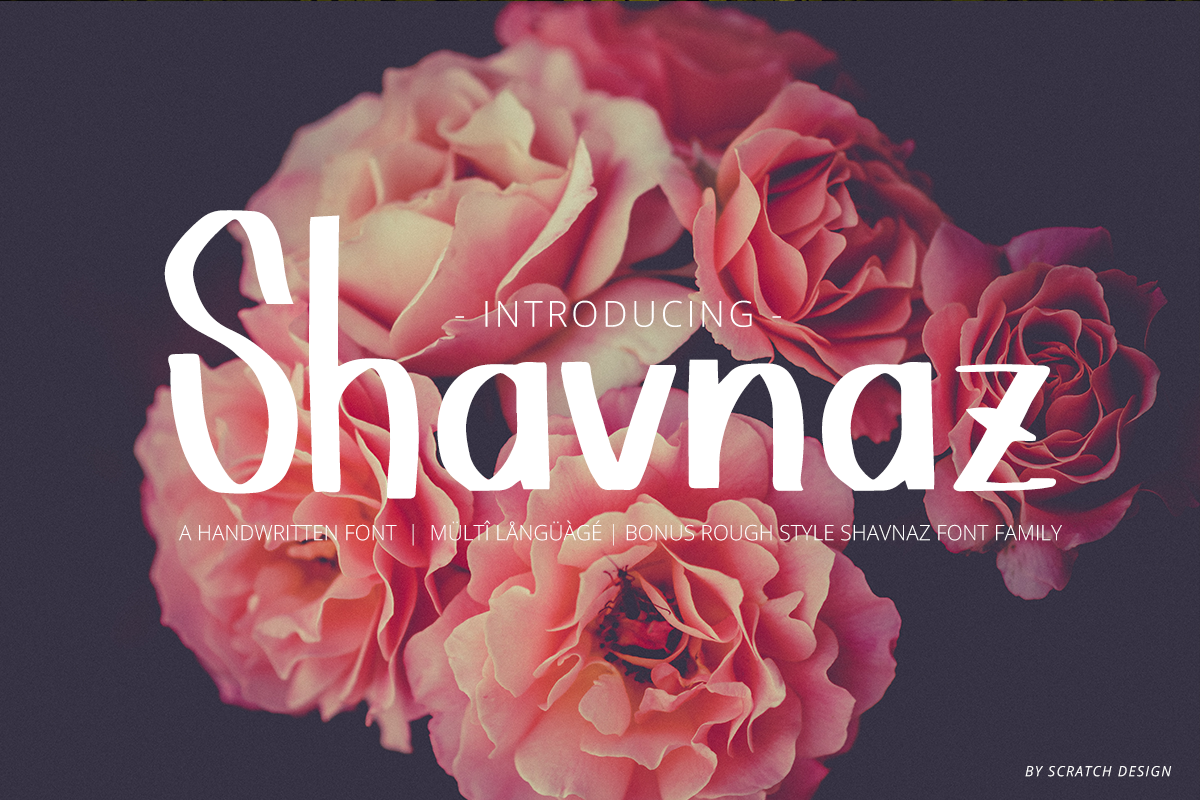
Shavnaz
Introducing Shavnaz! A Smooth Marker Font with two stylish fonts. This font made with the perfect combining of each character.  It looks original with board marker style and can be used for all your project needs. Each glyph has its own uniqueness came from marker brush style and when meeting with others will provide dynamic and pleasing proximity. Shavnaz will useful in all your design projects such as quotes, poster design, flyers, brochures, sign system, branding, promotional materials, logotype, product packaging, etc.